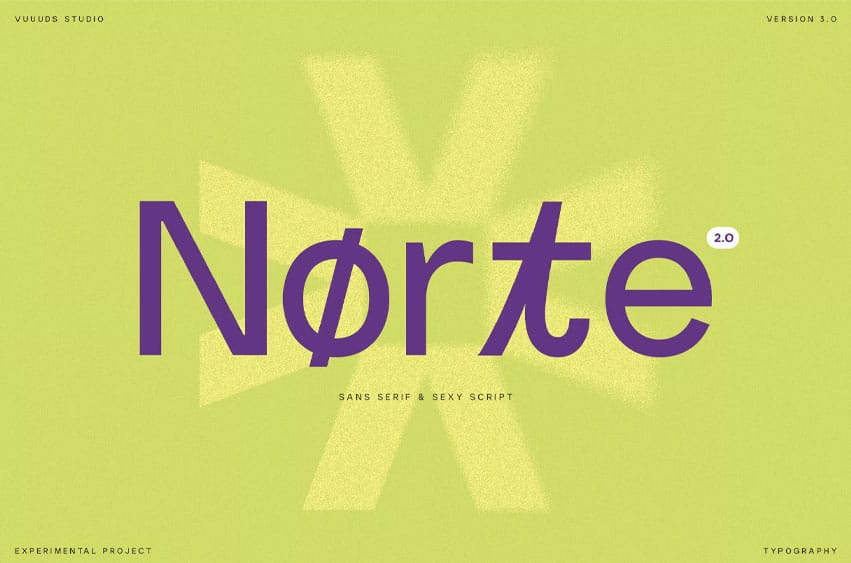
Norte Font Duo! The Sans Serif font family, with its clean lines and minimalist aesthetic, offers unparalleled clarity and a modern, approachable feel—ideal for logos, titles, and posters where immediate readability is key. In contrast, the Modern Script font brings a refined touch of personality and elegance.
Its beautiful, flowing letterforms are perfect for establishing a boutique or personalized brand identity, lending sophistication to cafe menus, premium product packaging, and signature elements within a logo. Together, these two styles create a dynamic pairing for any brand.